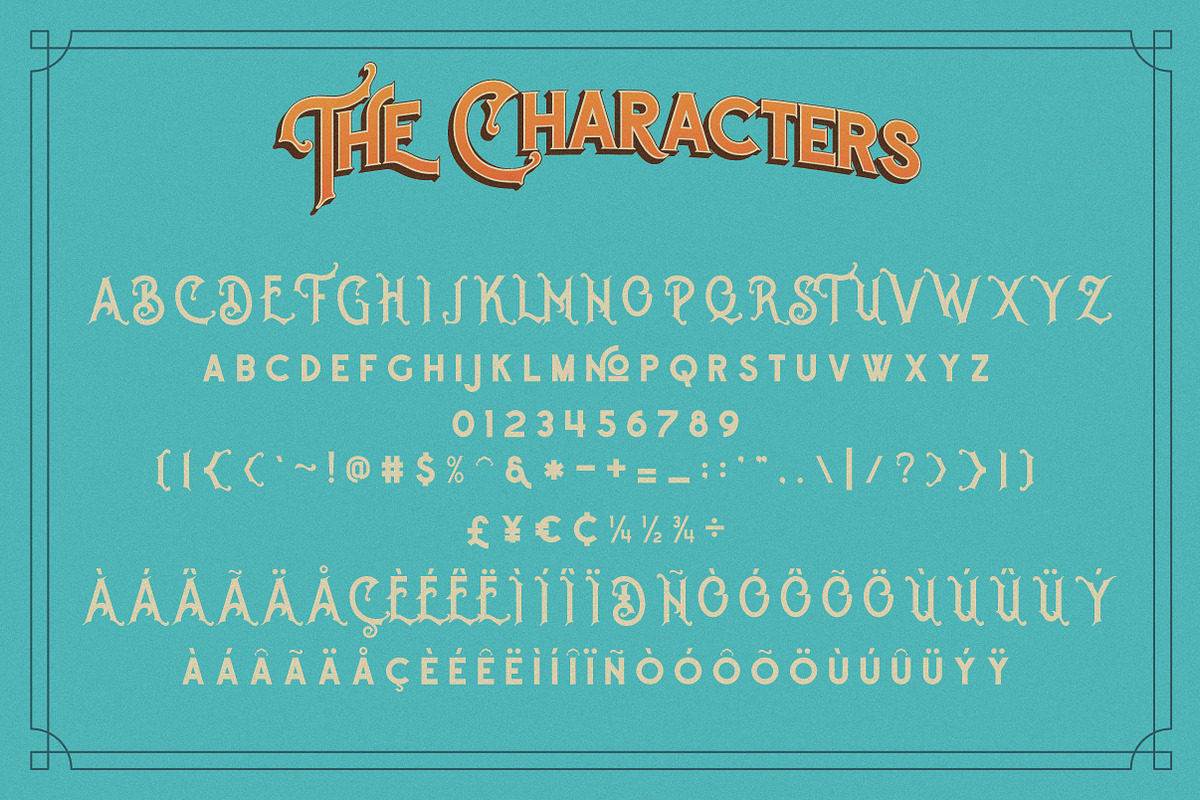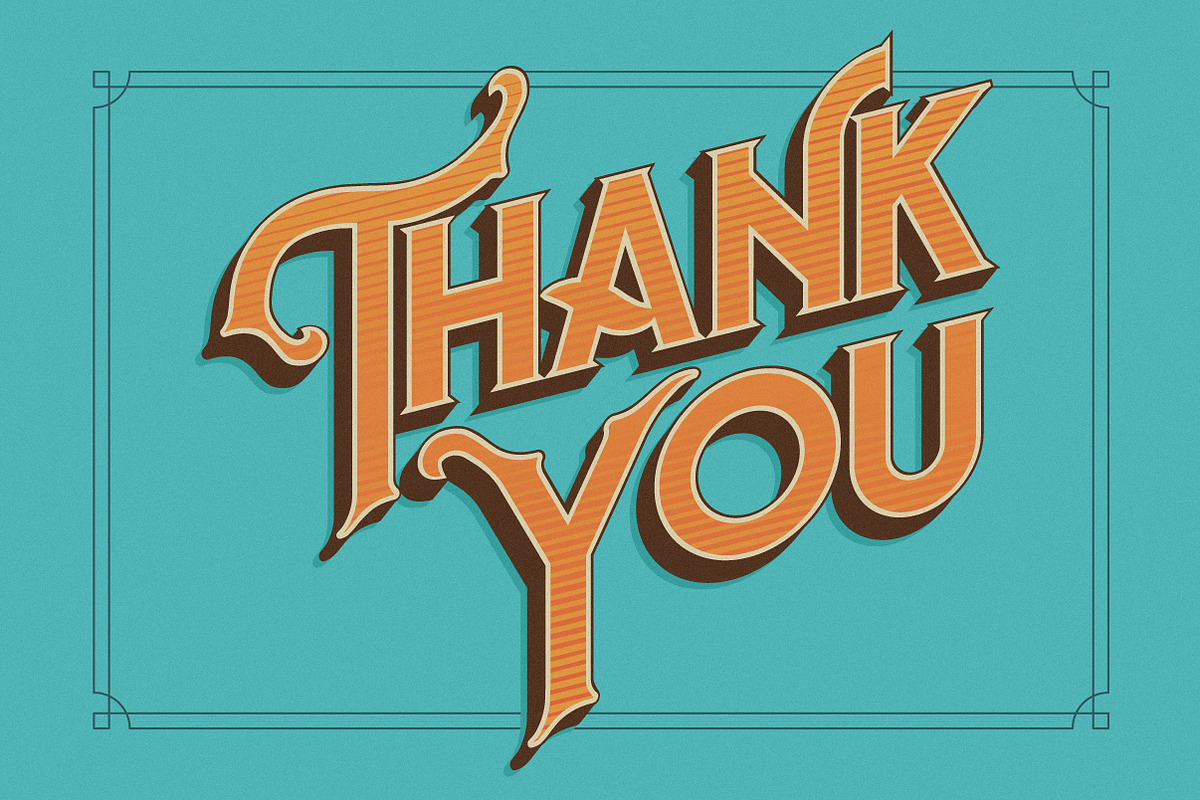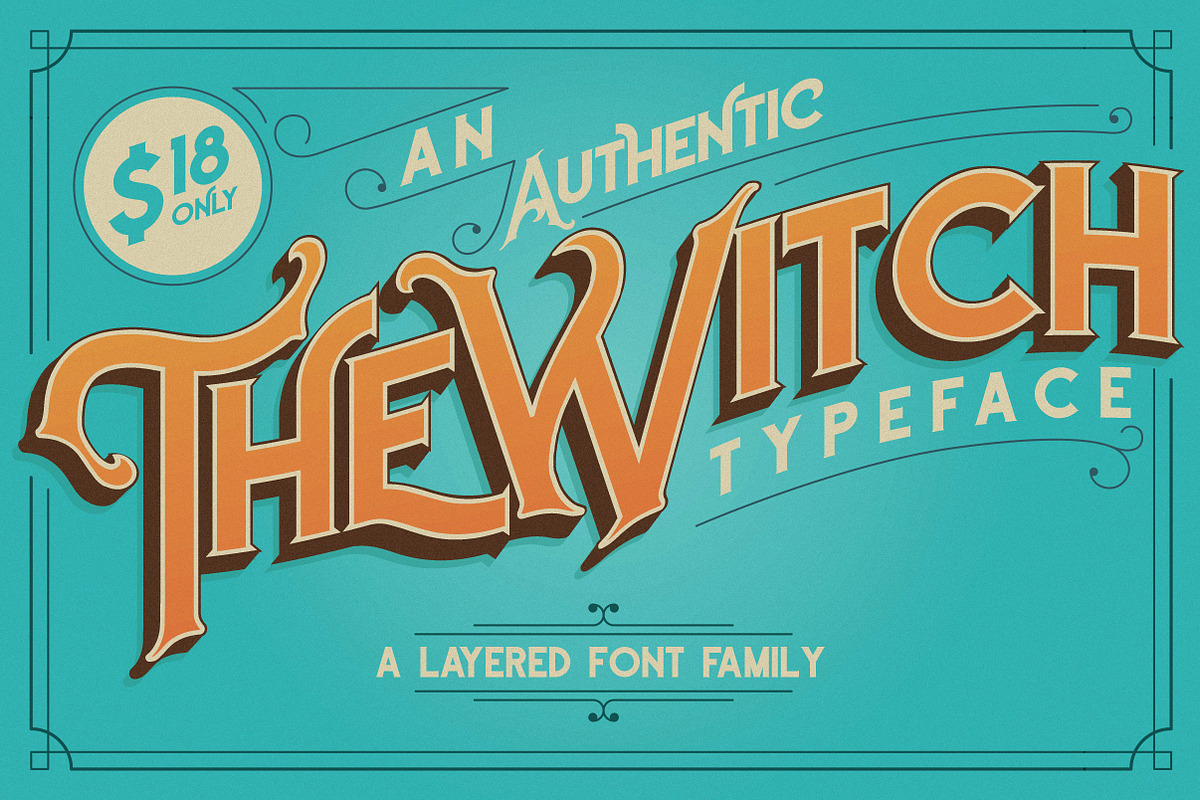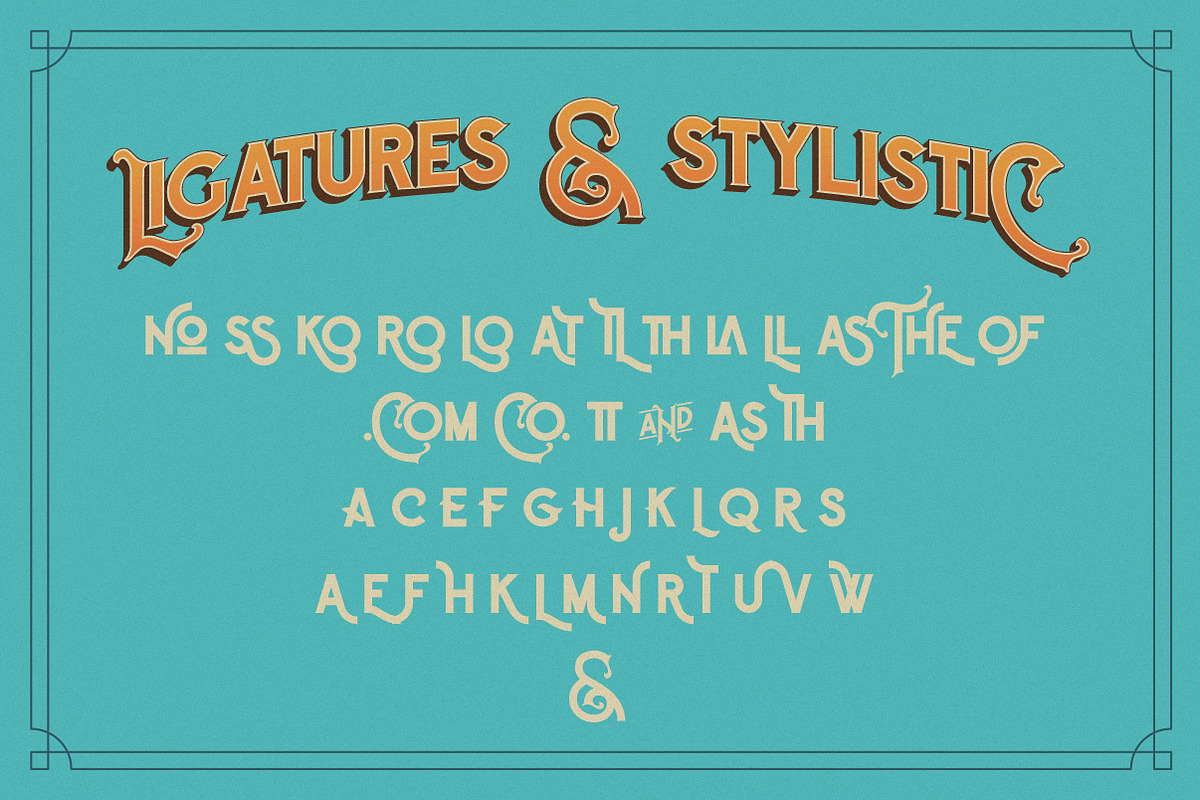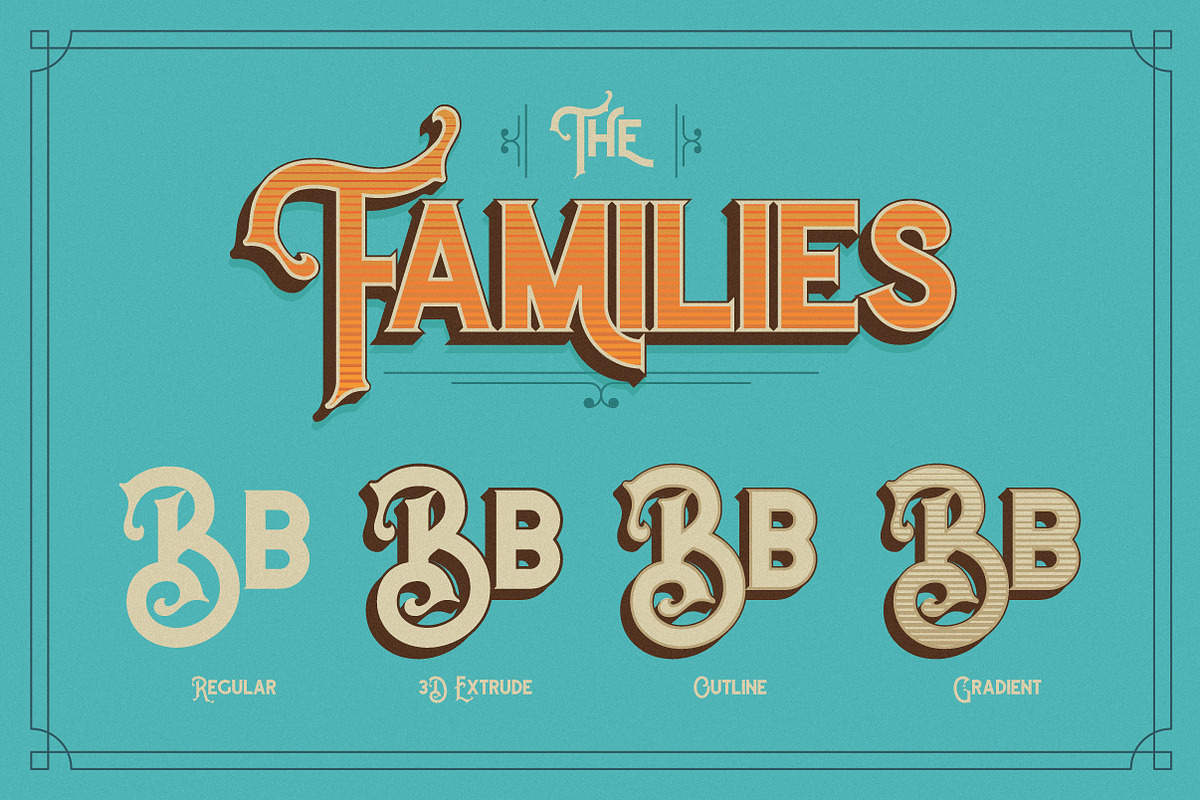
The Witch Typeface
The Witch Typeface by Paperwitch is a font selected for branding, posters, packaging, typography.
- The Witch Regular
- The Witch Gradient
- The Witch Outline
- The Witch Shadow
The Witch Typeface by Paperwitch fits naturally into Branding, posters, packaging, typography.